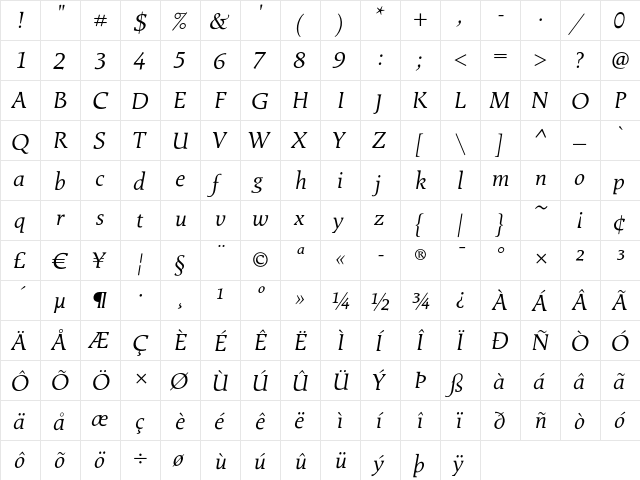
Exlibris Italic
Design Context for Exlibris Typeface
Exlibris offers clean, dependable letterforms without strong stylistic allegiance, making it a practical choice for designers who need flexibility. The slanted form adds forward momentum and visual energy.
Pro Tip: Try Exlibris for annotation and caption copy alongside an upright companion — the contrast in angle creates a dynamic but ordered typographic system.